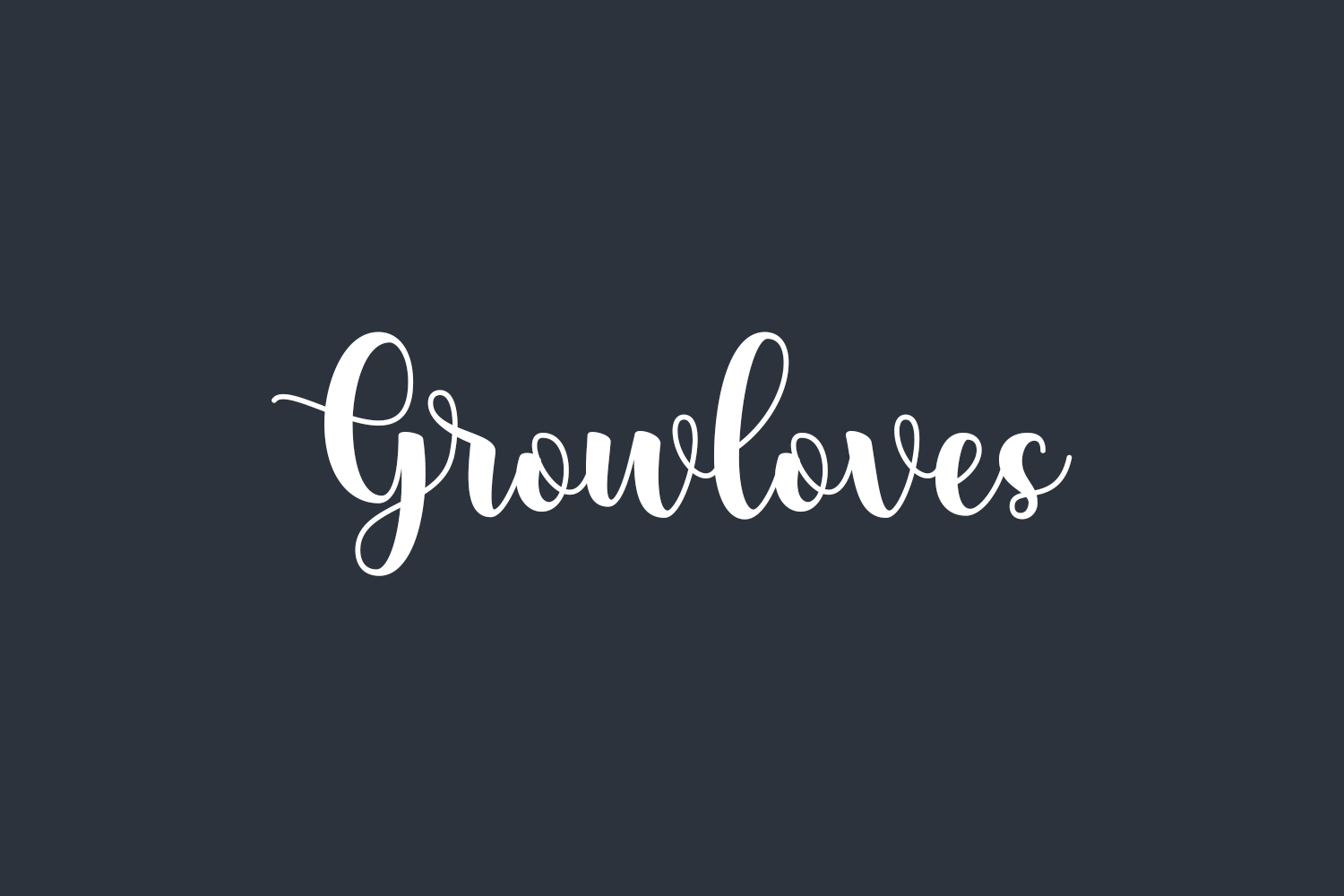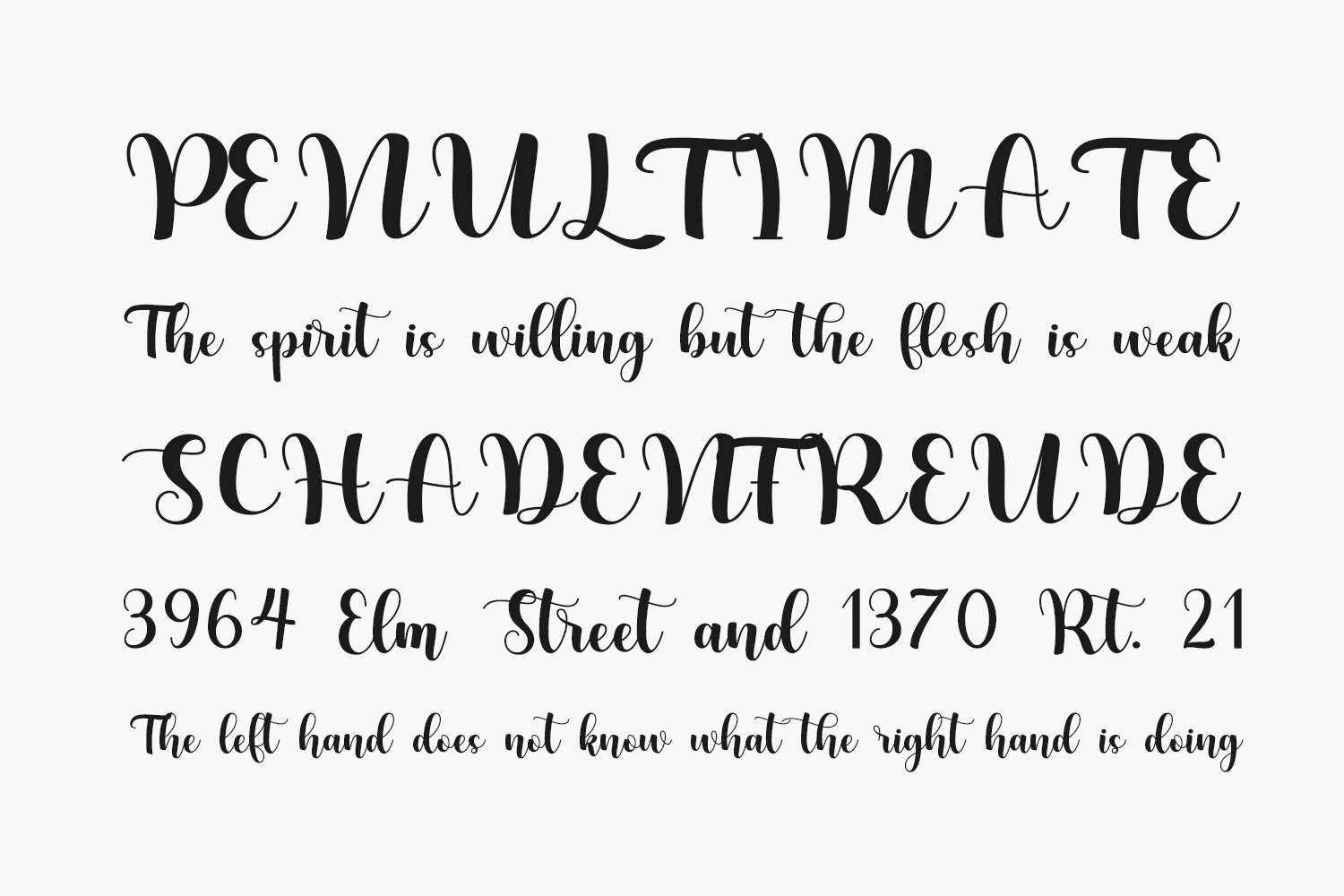
Growloves Free Font is a lovely and delicate duo font (sans serif and script). Its distinct and refined letters make this font a masterpiece. Fall in love with its incredibly versatile style and use it to create spectacular designs. Growloves Free Font was designed by Fadlilah Studio and is free for personal use only. Please purchase the full version for commercial use.